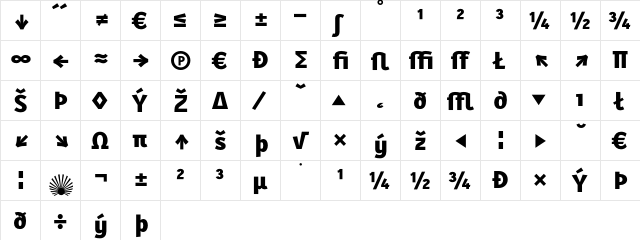
Karbid ExtraBoldExpert Font Preview
Karbid ExtraBoldExpert
Design Context for Karbid Typeface
Karbid offers clean, dependable letterforms without strong stylistic allegiance, making it a practical choice for designers who need flexibility. Its bold stroke weight gives it real presence on the page.